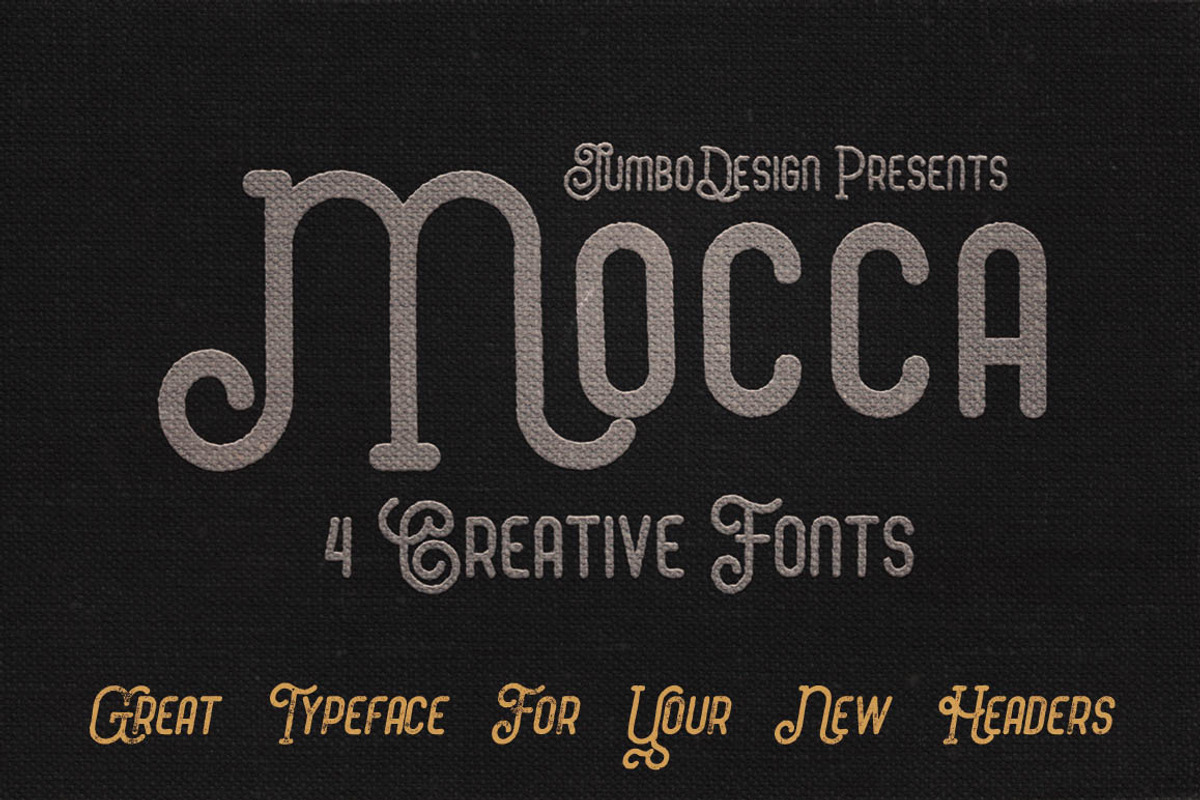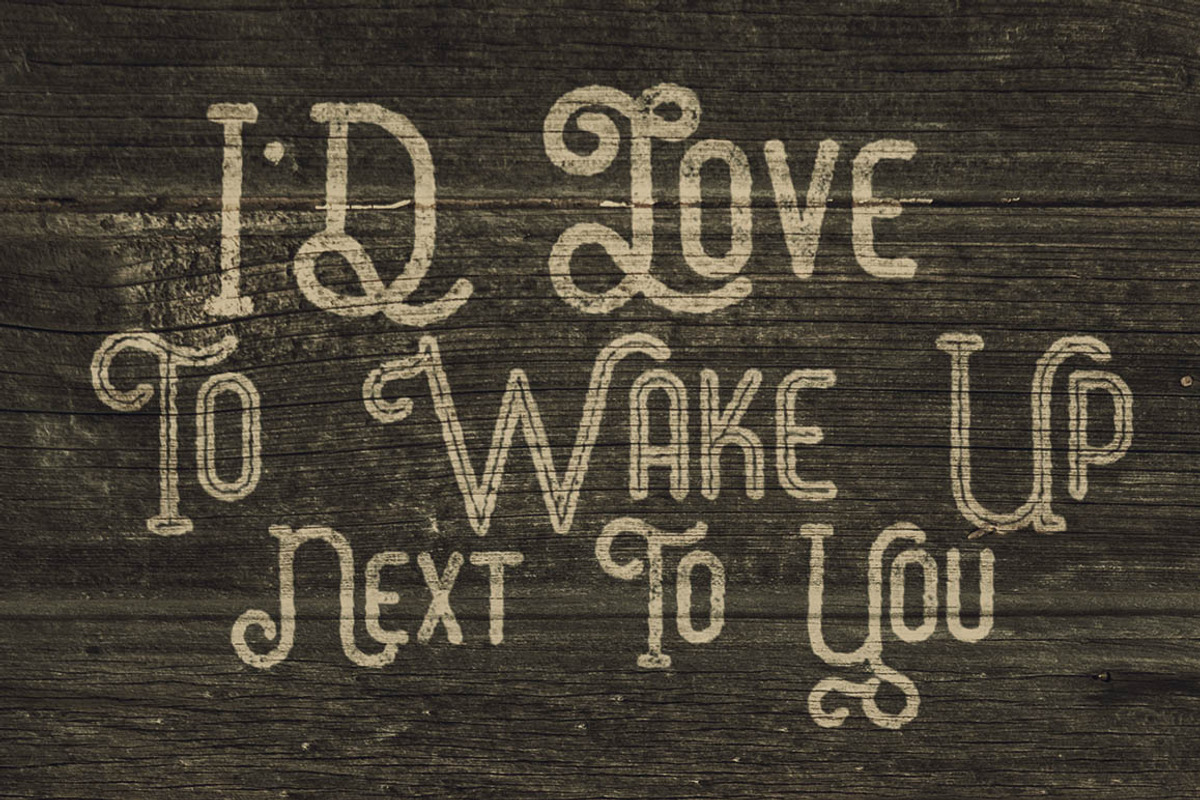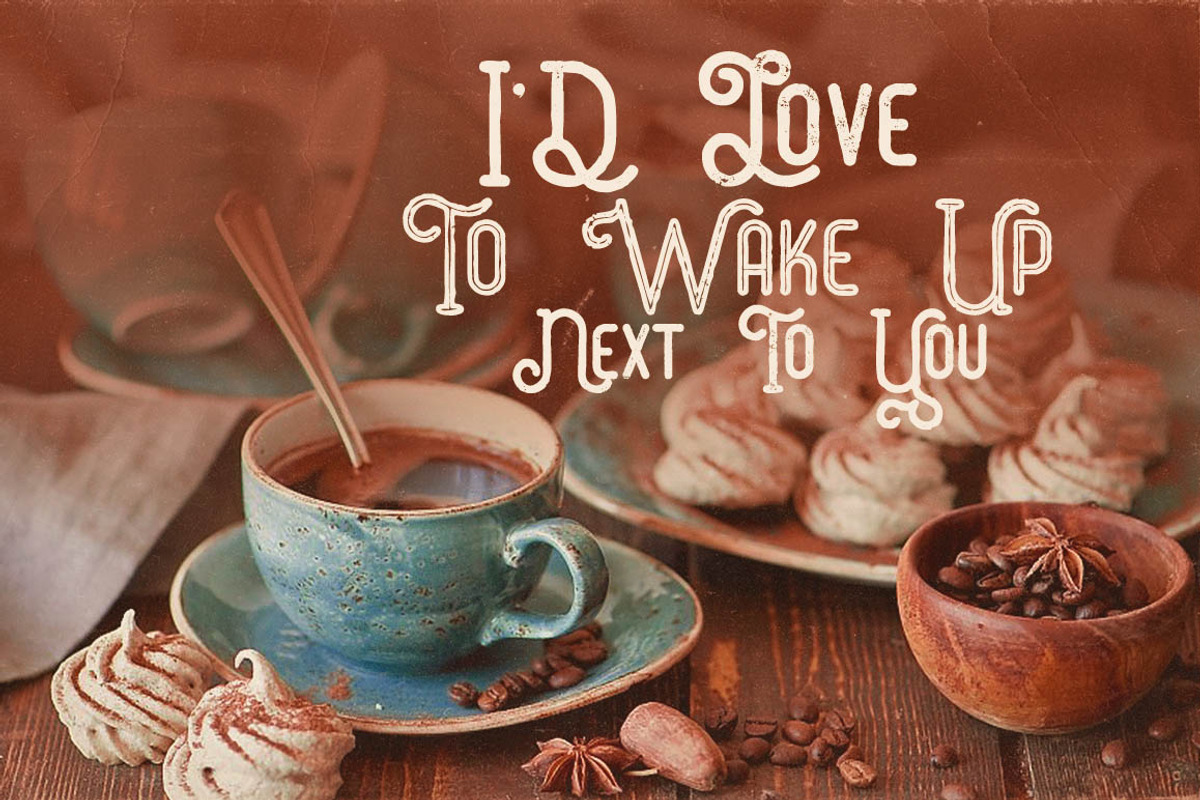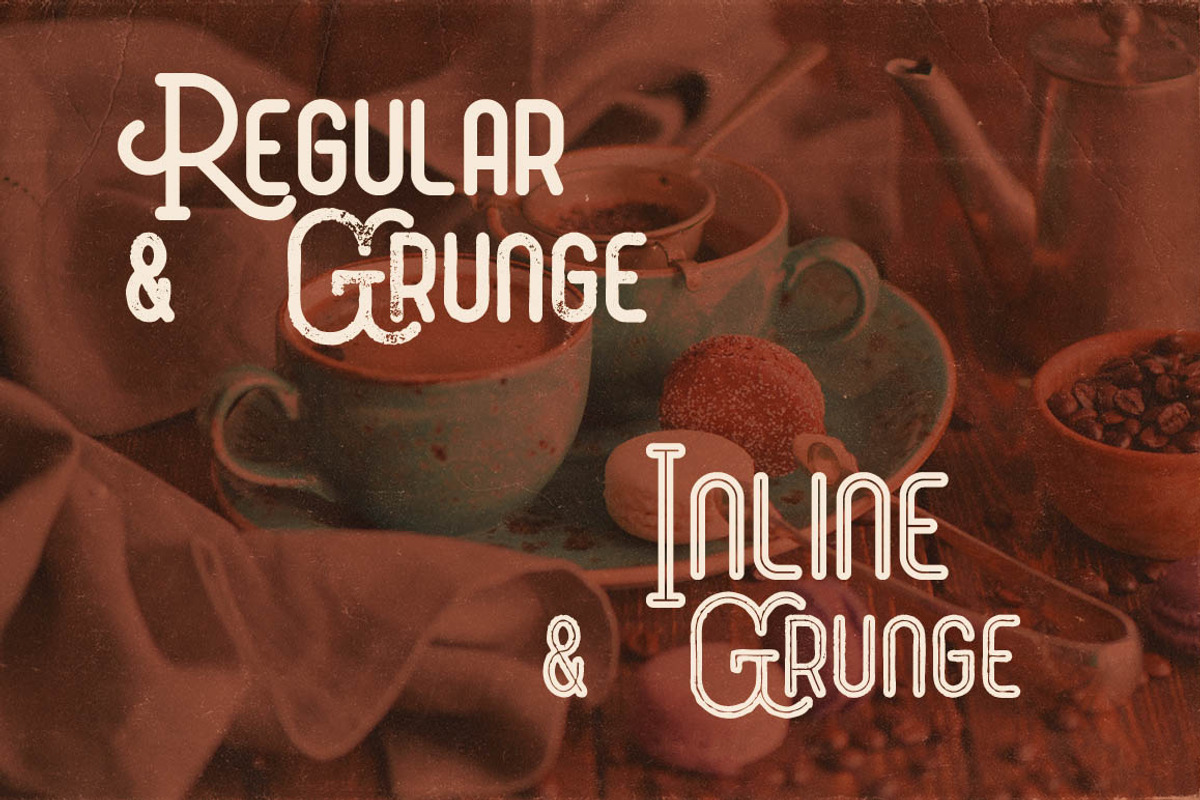
Mocca - Vintage Style Font
Mocca - Vintage Style Font by JumboDesign is a font selected for branding, posters, packaging, typography.
- Mocca Grunge Grunge
- Mocca Inline Grunge Inline Grunge
- Mocca Regular Regular
- Mocca Inline Inline
Mocca - Vintage Style Font by JumboDesign fits naturally into Branding, posters, packaging, typography.